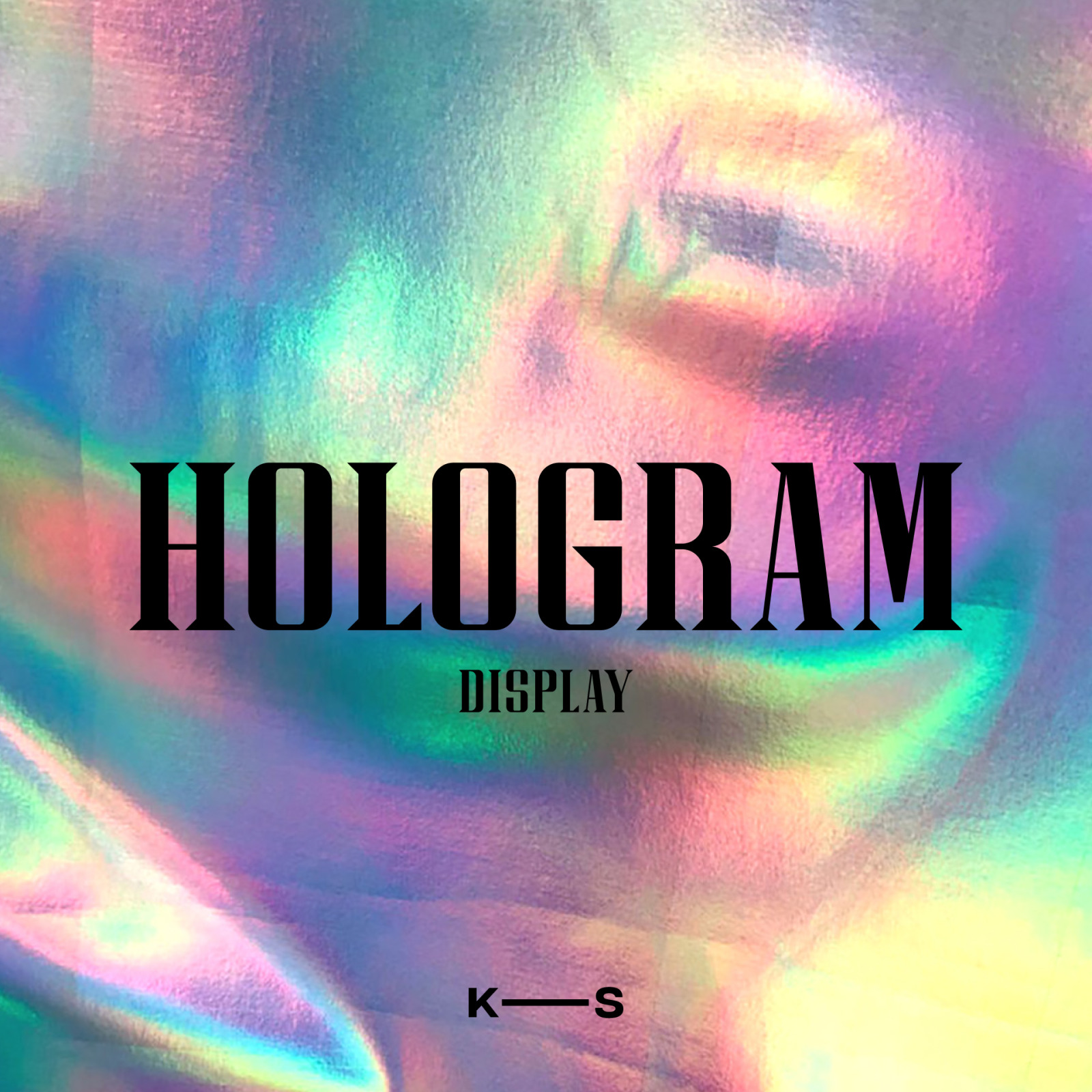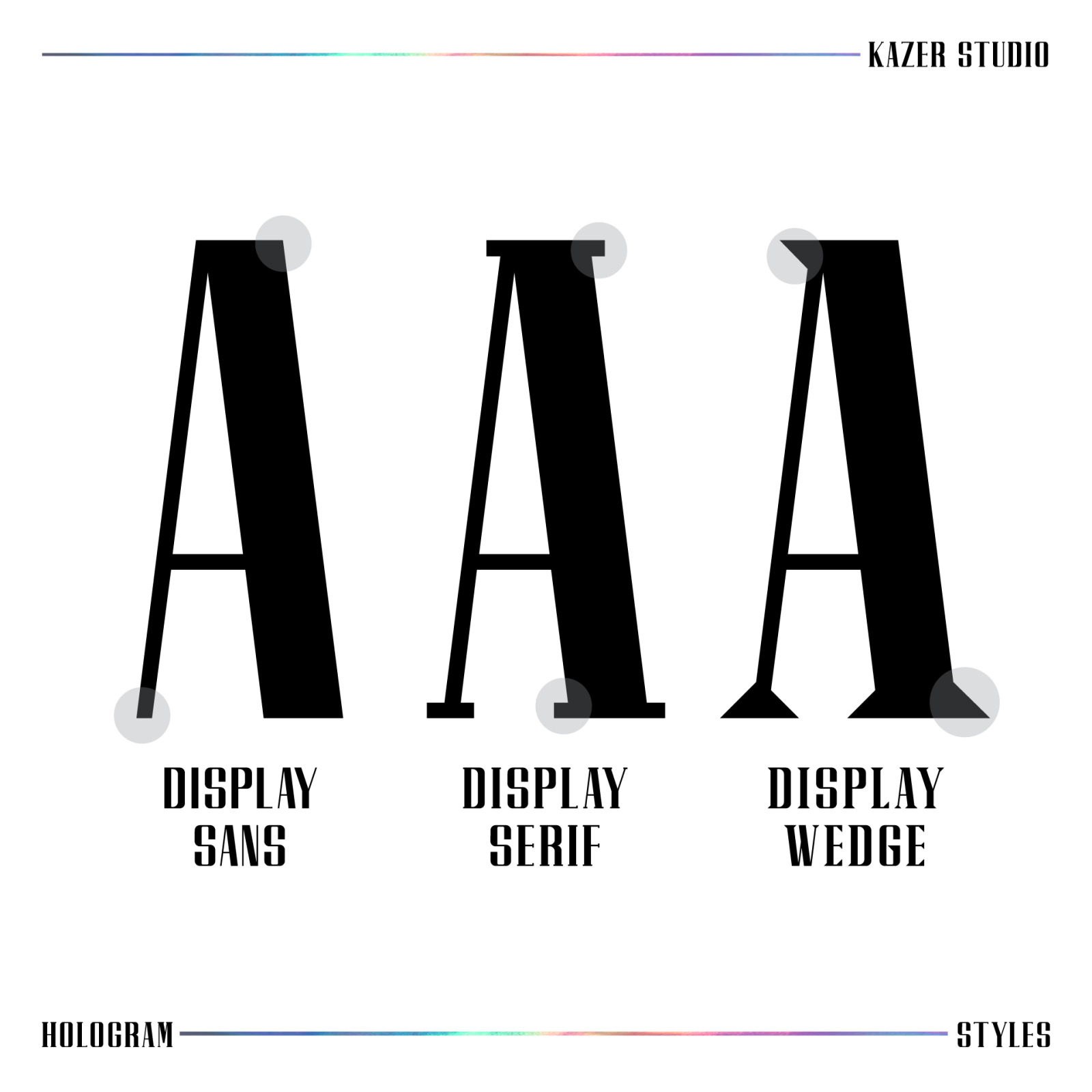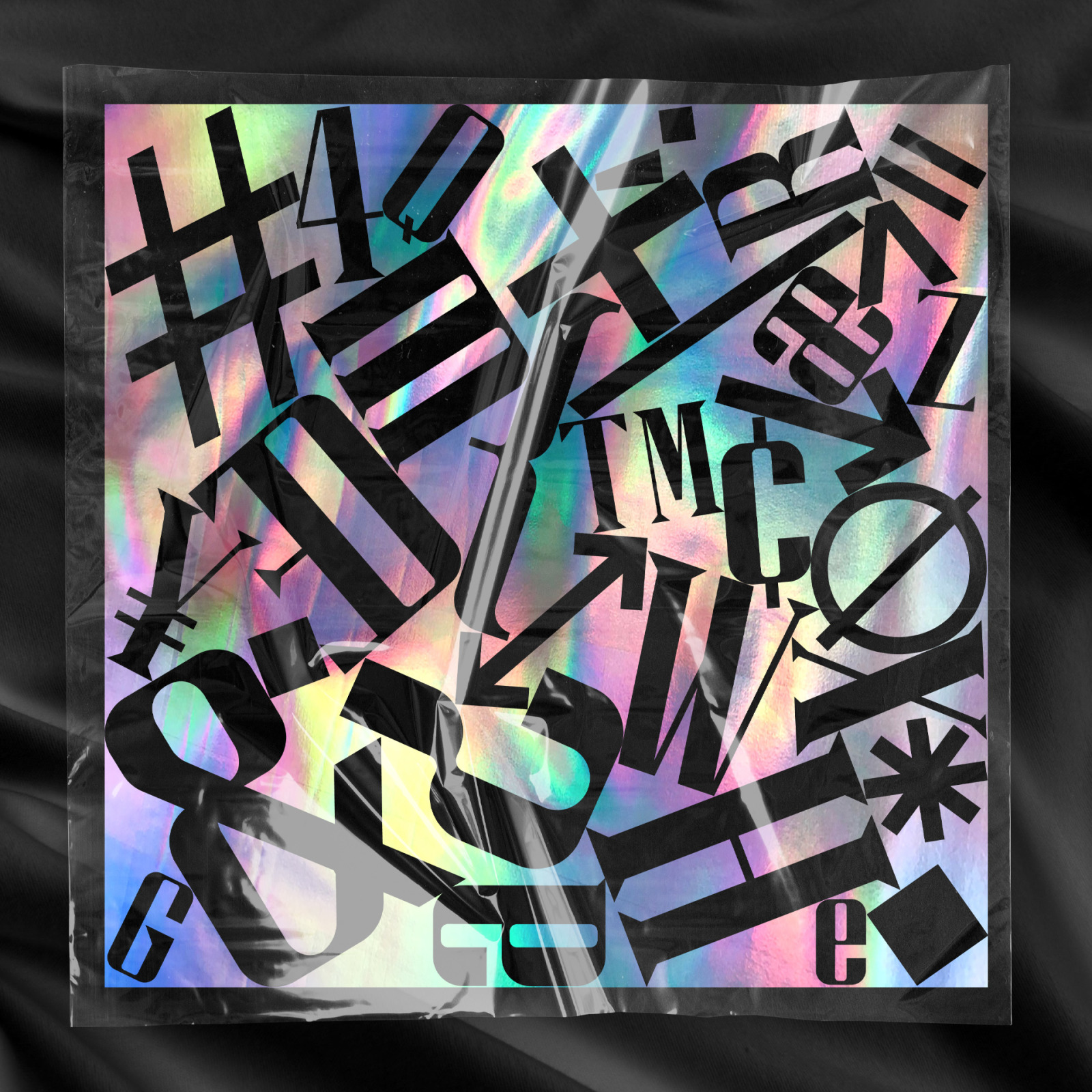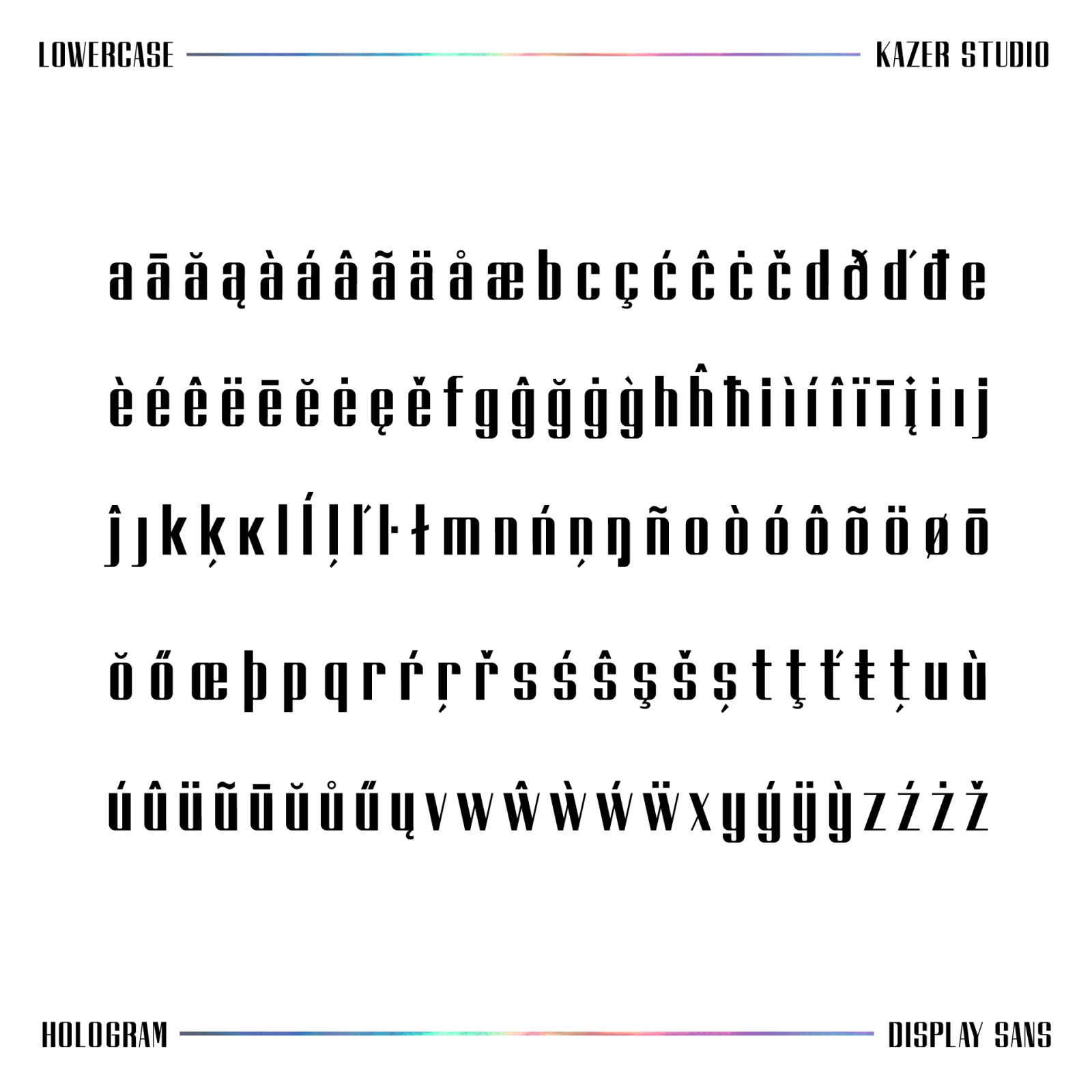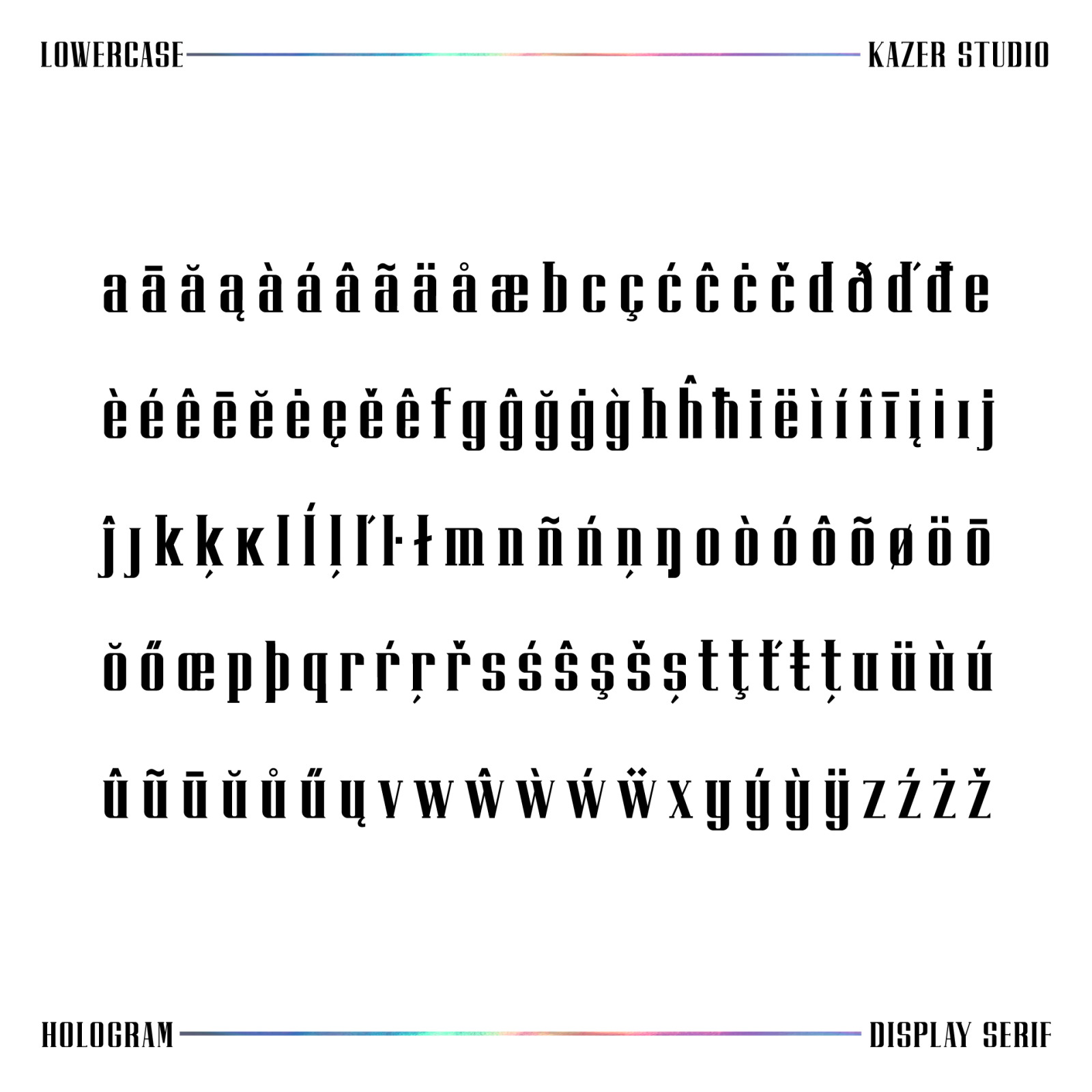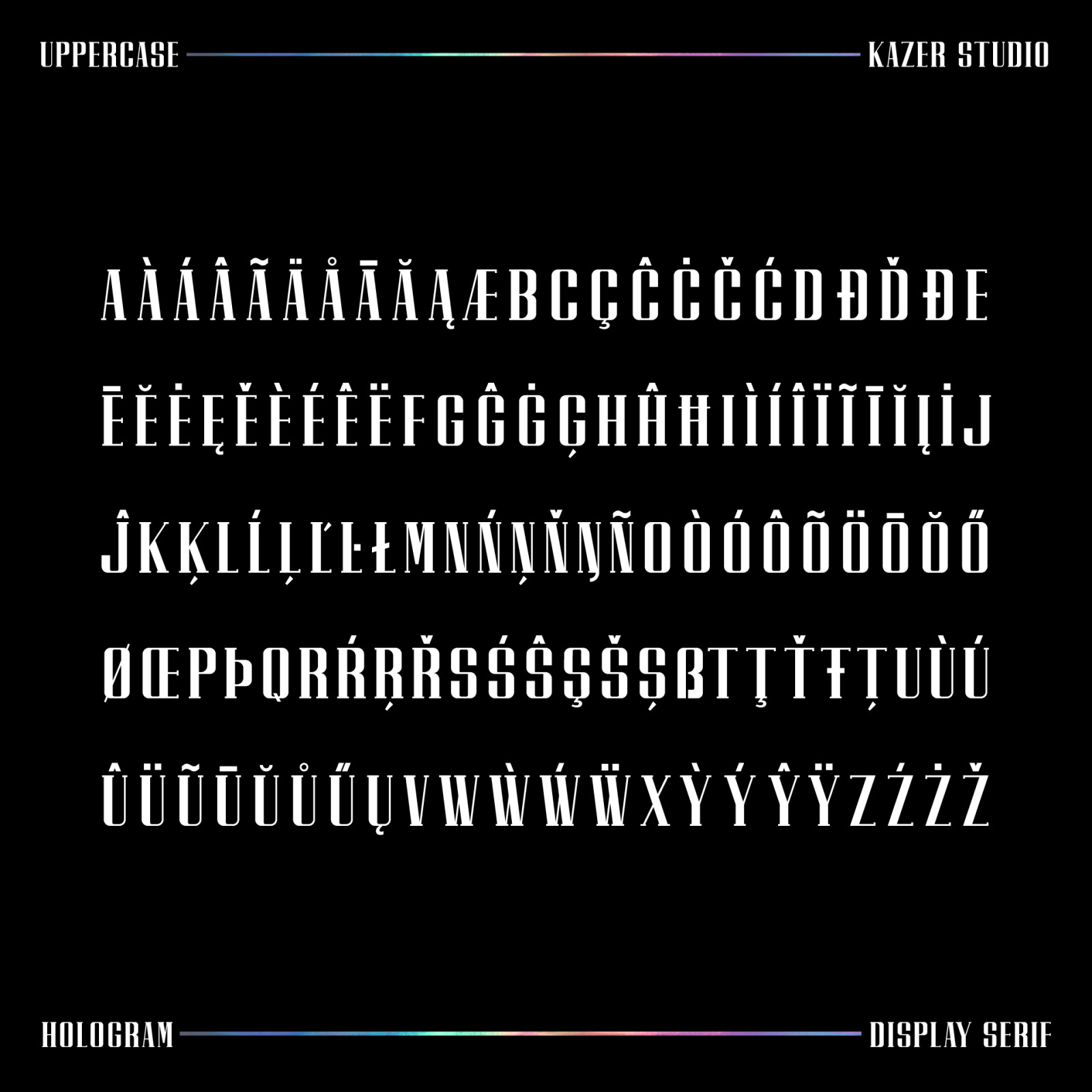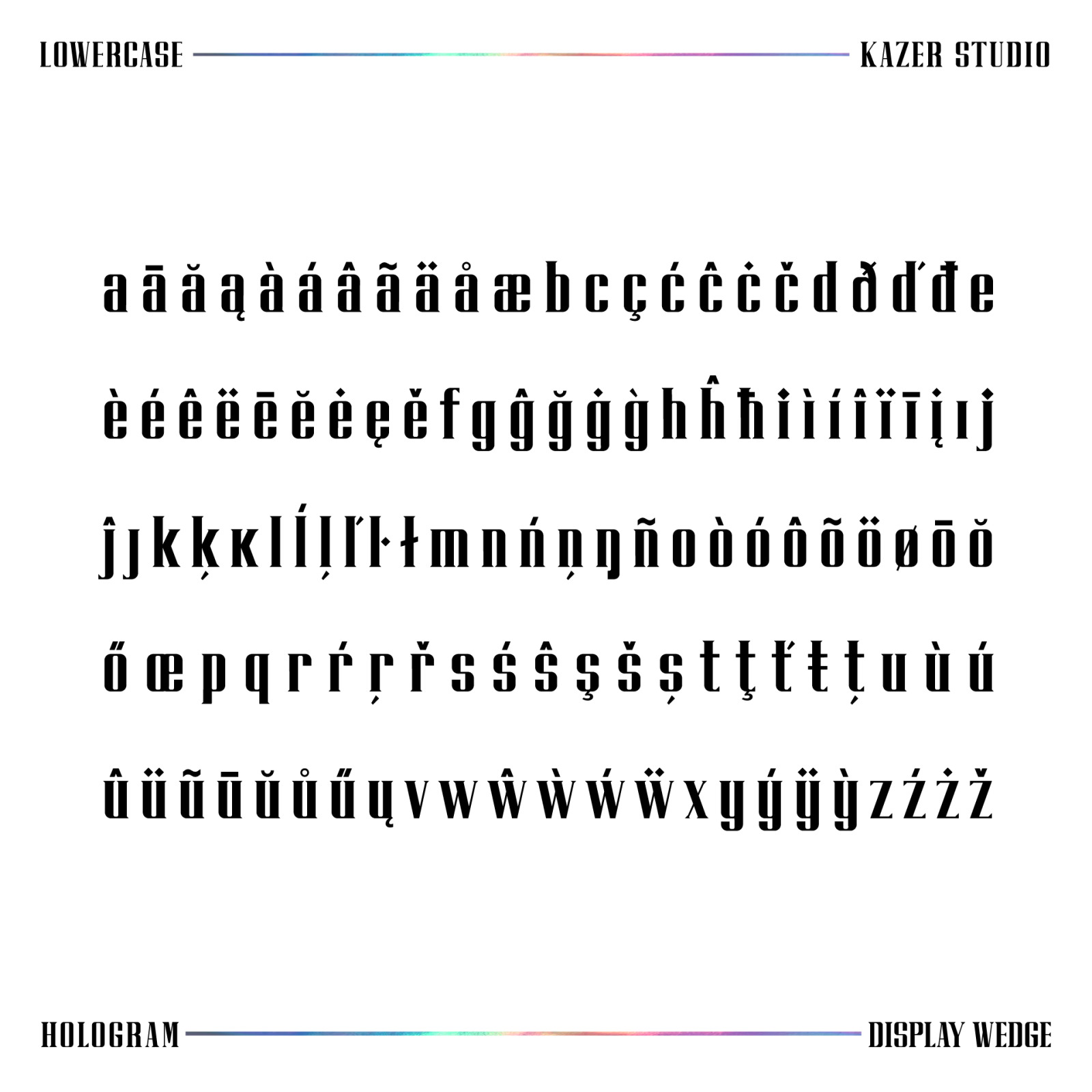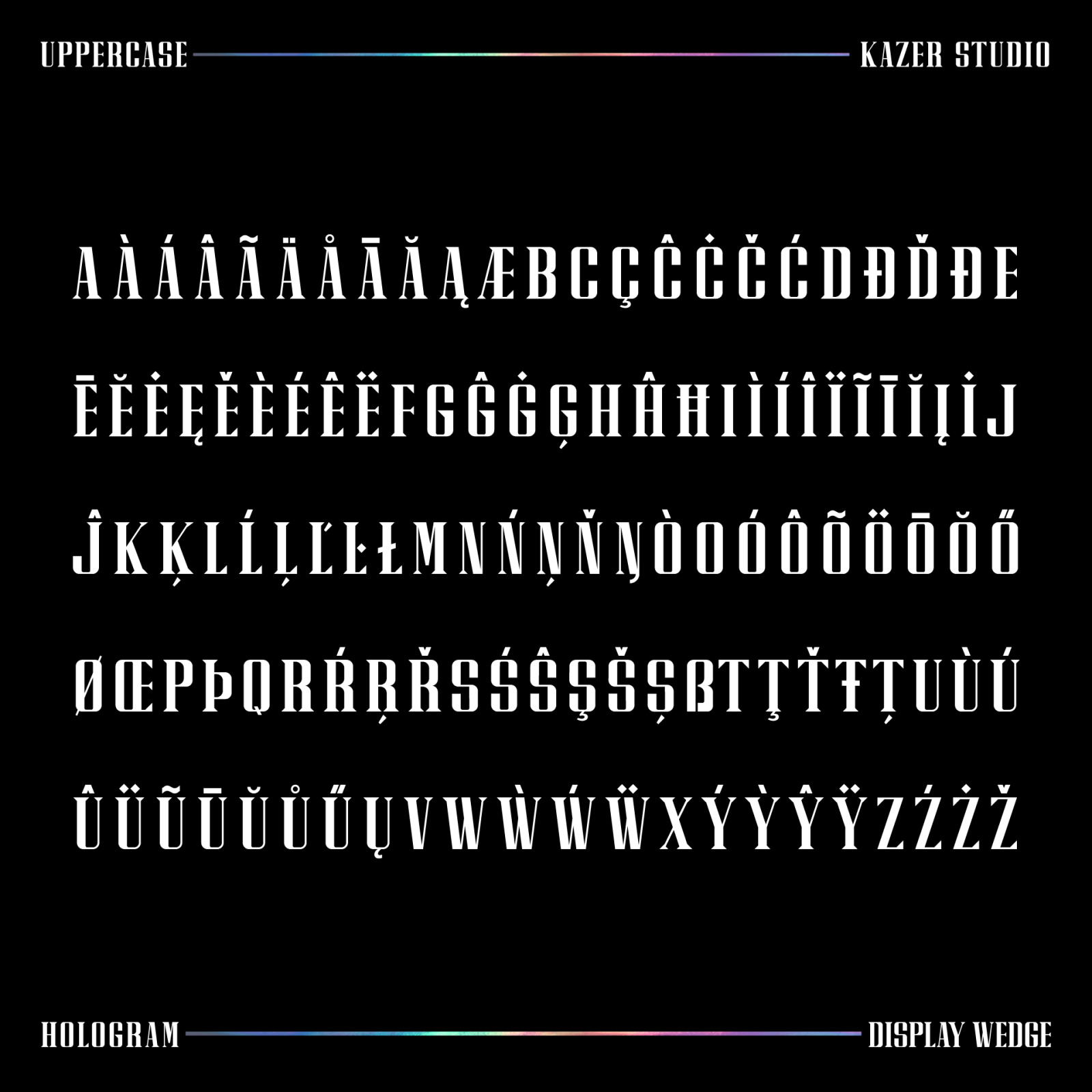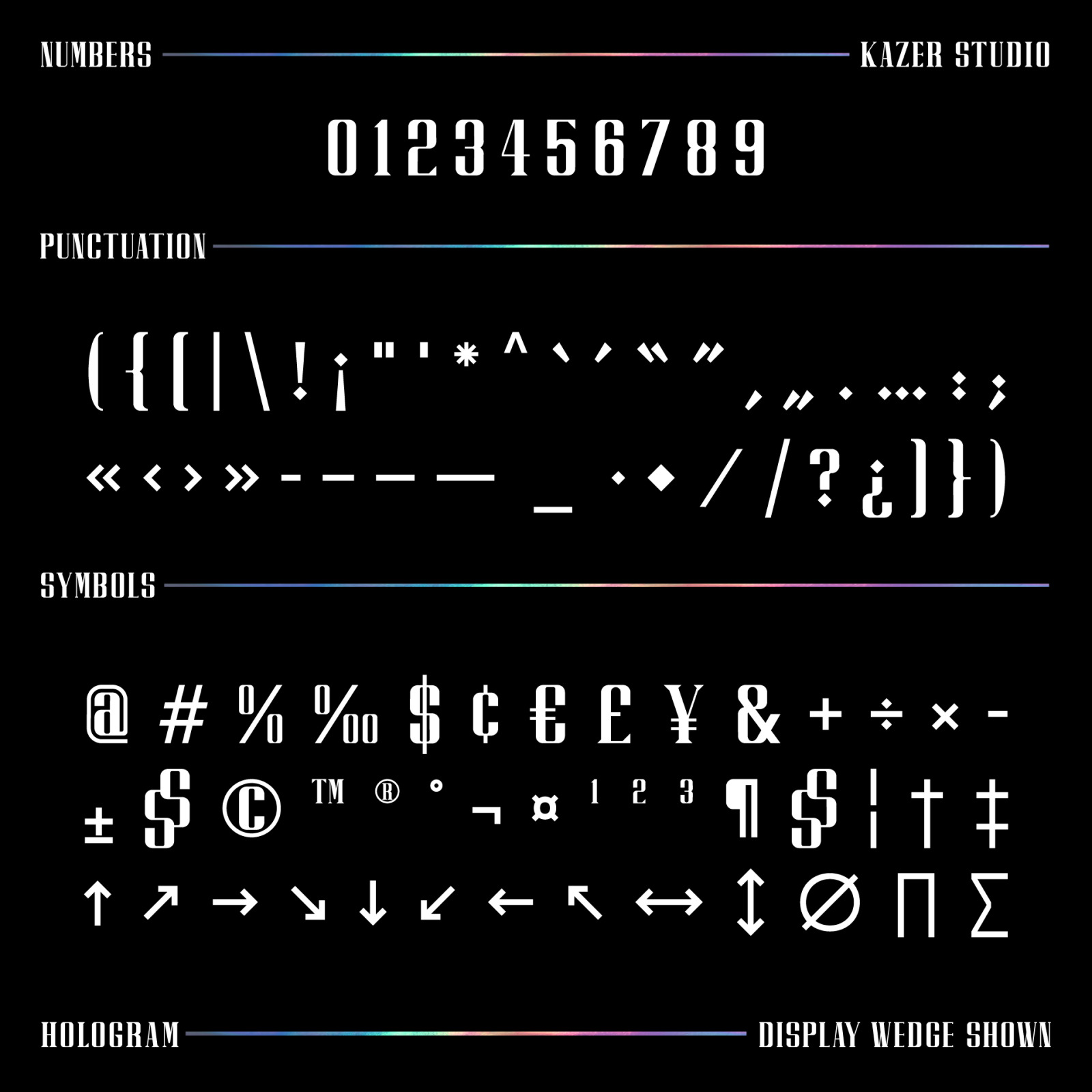
Hologram Font
HOLOGRAM is a Display font inspired by a combination of the future and the past. The intention was to design a font that was most effective when applied to Largely Displayed Text, rather than for smaller extended bodies of text. There are 3 distinctive styles - Display Sans, Display Serif & Display Wedge. Each style features minor but significant character stem alternatives with serifs & without serifs, giving the ability to easily adjust according to the intended use.
- 3 Styles (Display Sans, Display Serif & Display Wedge)
- 350+ Glyphs
- Support for up to 26 Languages
- Specialised Kerning & Spacing